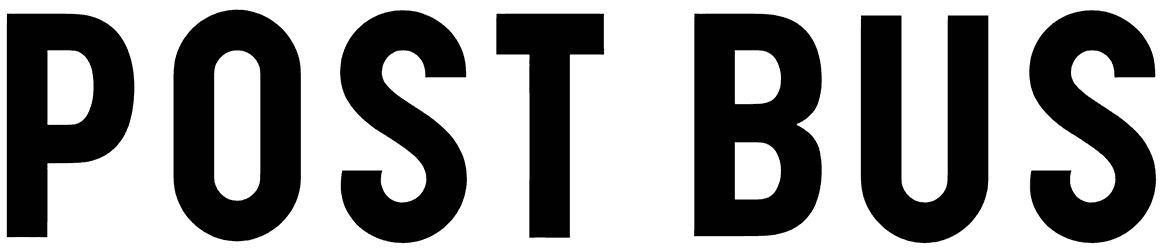
Post Bus Font
Let’s choose a modern and modest style for your next design and show that you can provide the best layout. This sans-serif font is an all-purpose item that can be matched with any subject. There is no offer for lowercase…
Let’s choose a modern and modest style for your next design and show that you can provide the best layout. This sans-serif font is an all-purpose item that can be matched with any subject. There is no offer for lowercase letters, but with two versions, the Post Bus font will work well for many projects, such as posters, branding, banners, and so on.